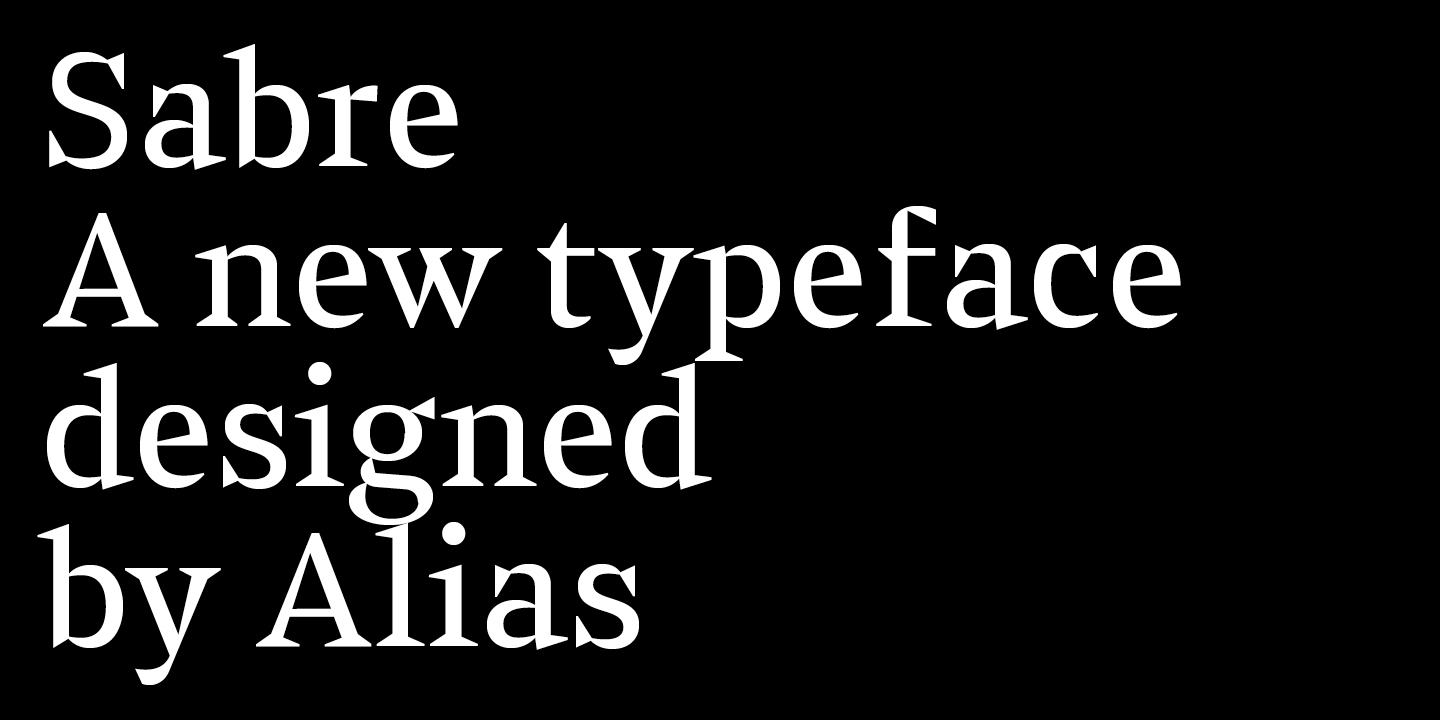
The Sabre Font excels in various design applications including dynamic action movie posters, adventure sports branding, competitive gaming interfaces, military-inspired communications, bold marketing campaigns, extreme sports merchandise, action-oriented web design, powerful corporate identities, aggressive advertising materials, and commanding brand systems that demand sharp precision and fierce visual impact.
What makes the Sabre Font exciting is its embodiment of cutting-edge sharpness and tactical precision through letterforms that suggest the swift strike and deadly accuracy of a master swordsman's blade. This typeface captures the essence of focused determination and strategic excellence through carefully crafted characters that convey strength, speed, and unwavering precision. The font's razor-sharp personality makes it perfect for brands seeking to communicate competitive advantage, tactical superiority, and uncompromising performance through typography that cuts through market noise with surgical precision.
The Sabre Font family typically includes multiple weight variations designed for maximum impact, featuring sharp-edged italic styles that enhance the sense of forward momentum and cutting action. These family options often include condensed variants optimized for tight spaces, extended versions for dramatic headlines, and specialized characters that emphasize the sabre's legendary cutting precision and battlefield dominance.
Action industry professionals and competitive brand strategists consistently select Sabre Font Free Download for projects requiring typography that communicates dominance, precision, and cutting-edge performance. This typeface delivers exceptional results in sports marketing, military communications, and high-performance industries where conveying superior capabilities and tactical advantage is essential for market leadership. The font's sabre-inspired character makes it particularly effective for brands targeting performance-focused audiences seeking competitive excellence. Download Sabre Font Free Download today to access this powerful typeface that transforms brand communications with its cutting precision and tactical sophistication, creating compelling visual experiences that demonstrate sharpness, accuracy, and uncompromising performance standards that slice through competition with legendary effectiveness.